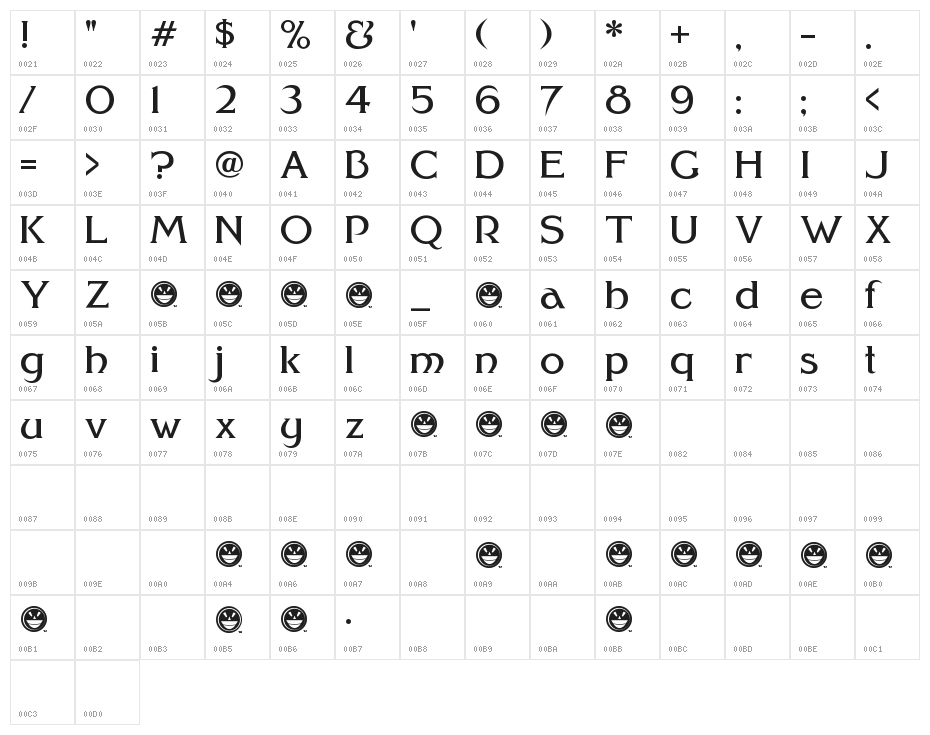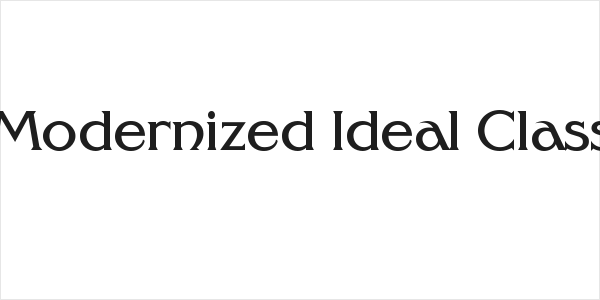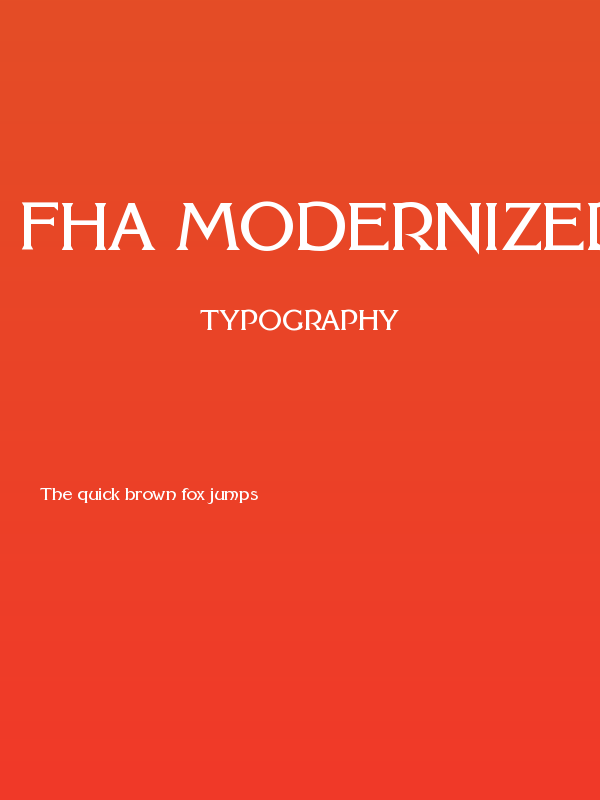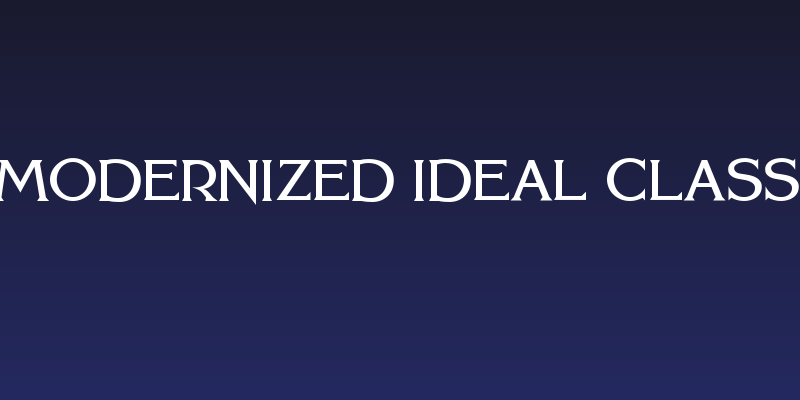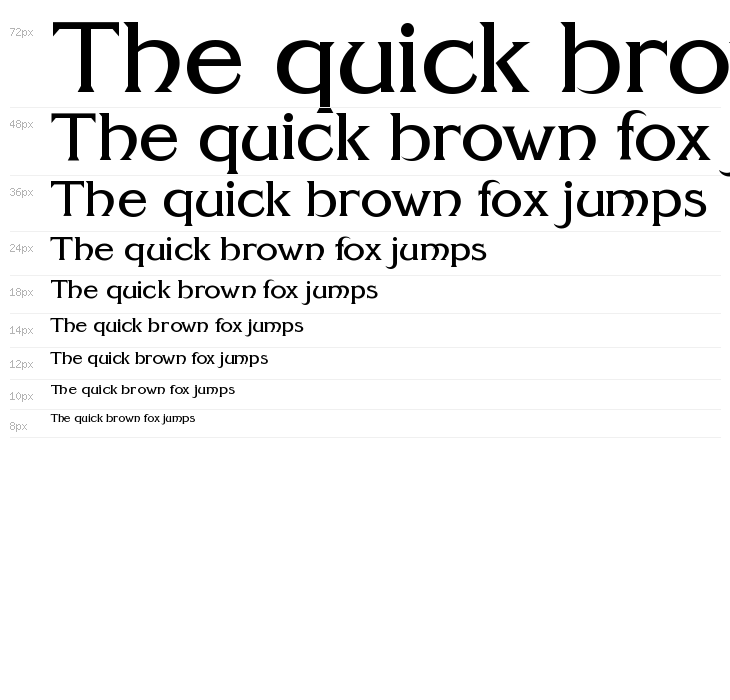
FHA Modernized Ideal ClassicNC Font
FHA Modernized Ideal ClassicNC Description
This font features a classic yet modernized serif style, characterized by elegant curves and a refined structure. The uppercase letters exhibit a strong presence with slightly flared serifs, while the lowercase letters maintain a harmonious balance with smooth transitions and rounded forms. The numerals are distinct and bold, ensuring readability. Special characters are crafted with attention to detail, complementing the overall aesthetic. This font combines traditional serif elements with a contemporary twist, making it versatile for various design applications.
| Proposed Projects | Ideal for editorial design, branding projects, luxury packaging, and sophisticated invitations. |